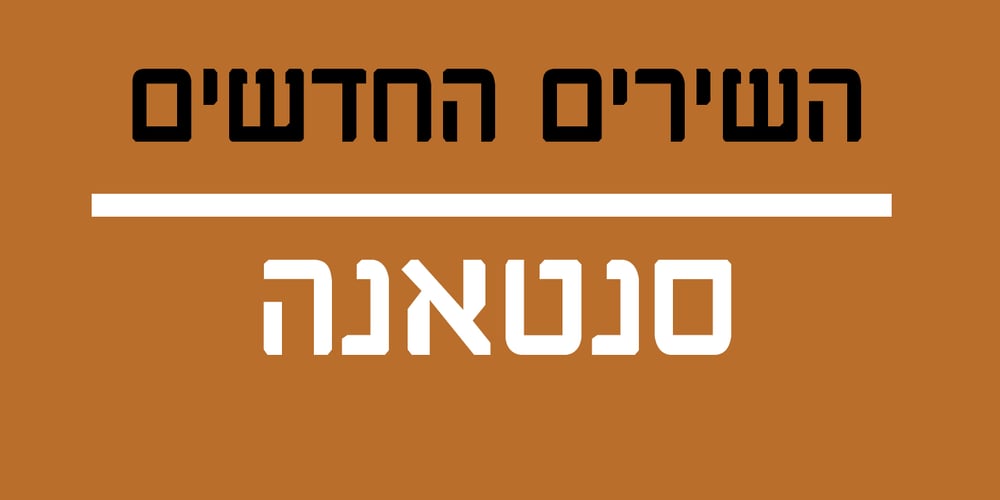
Batish MF Font Family was designed by Uzi Batish and published by Masterfont. Batish MF contains 2 styles and family package options. A practical font family with 4 weights for all your day by day design needs: headlines, signage etc.An extended sans serif typeface with rounded endings that provides unique softness appearance without losing legibility.